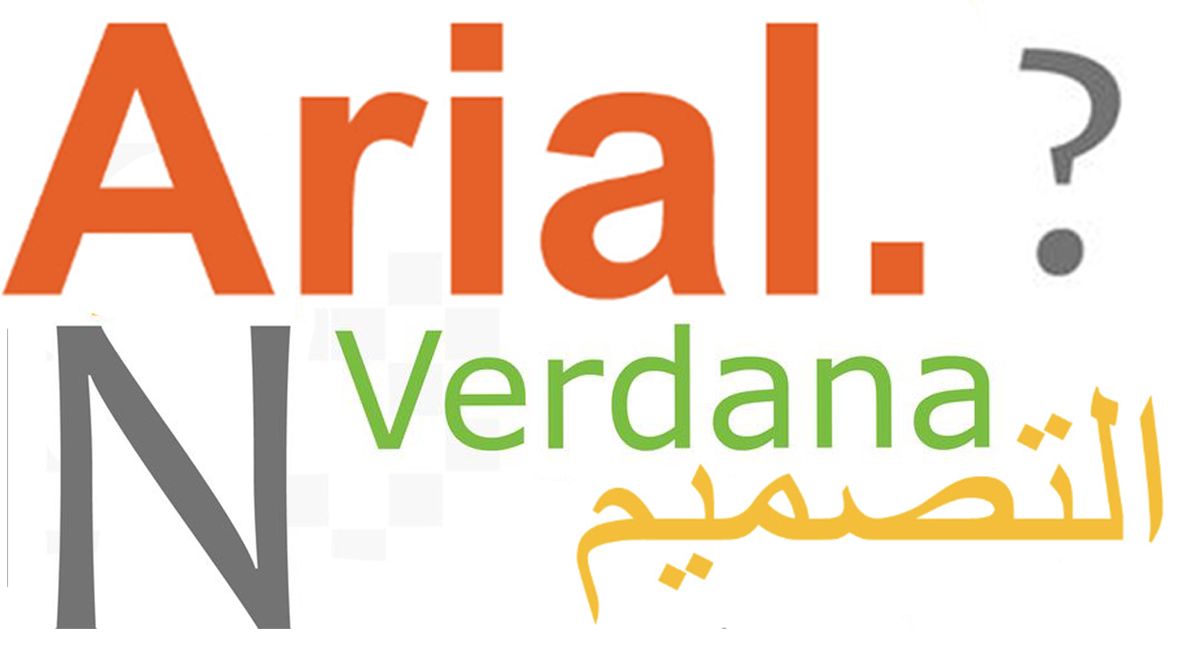
These typefaces could be ruining your brand's designs. Here's why
Bad typefaces according to a design studio's list of most-hated fonts.
Some typefaces can make designers break out into a cold sweat. Just look at the endless debate over Comic Sans or Saturday Night Live's pillory of Avatar's infamous Papyrus logo.
But it's not only novelty typefaces that earn designers' opprobrium. Many fonts that are often seen as dependable, neutral fallbacks might not be as solid as people think. A web design studio has just revealed its "ten most-hated fonts", and they might surprise you.